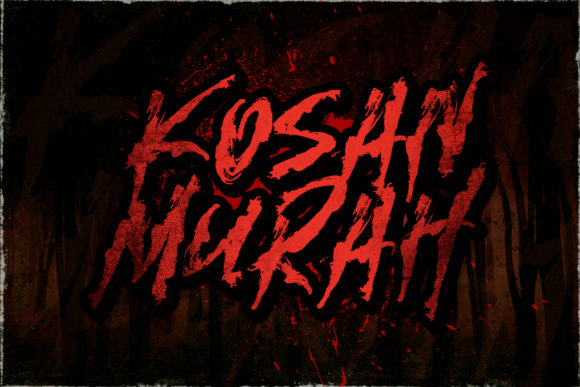
Introducing Kosan Murah!: The Display Font That Will Haunt Your Dreams!
Prepare to be captivated by Kosan Murah!, a display font that oozes horror and scares. Its unique design blends elegance with bone-chilling horror, making it the perfect choice for projects that demand a spine-tingling touch.
With Kosan Murah!, you'll unleash a world of frightful possibilities. Picture it adorning movie posters, spine-chilling book covers, haunting album art, and logos that send shivers down the spine. Its versatility extends to both digital and print media, ensuring your creations will make an unforgettable impact.
Kosan Murah!'s intricate strokes and decorative horror style will grab attention and leave a lasting impression. Each letter is meticulously crafted to evoke a sense of unease and intrigue, making it the ideal font for projects that aim to shock and awe.